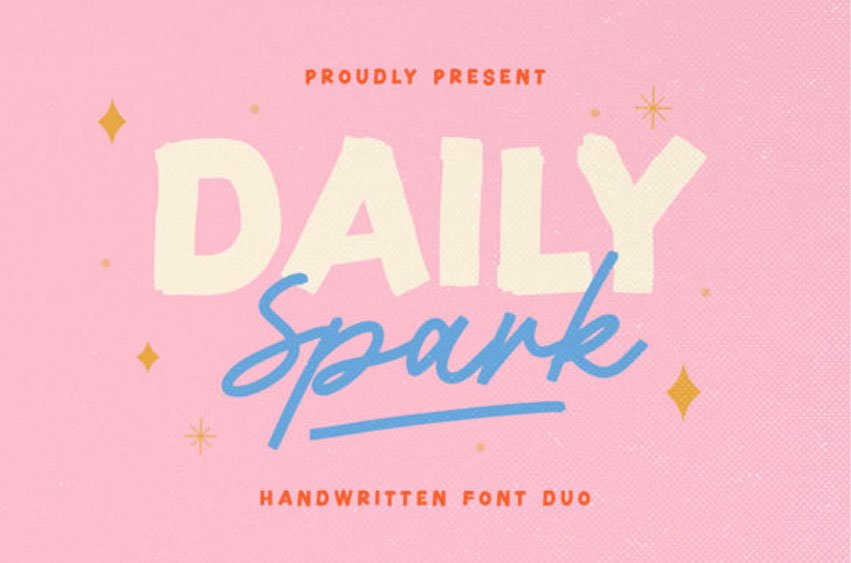
Daily Spark Font is a package of two fonts including Bold Sans and Script that will compliment each other.
You can use this font for any occasion such as branding, merchandise, etc. With handmade feels, this font is suitable for quotes.